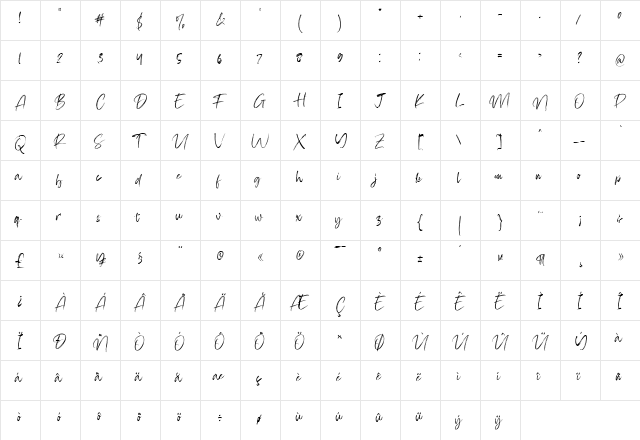
Firsta Regular
| Foundry | Stringlabs |
| Designer | Stringlabs |
Design Context for Firsta Typeface
Firsta is a composed and adaptable typeface that performs quietly and consistently across a wide range of design contexts.